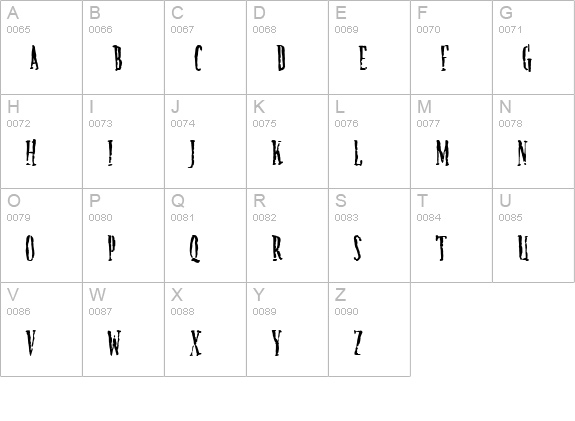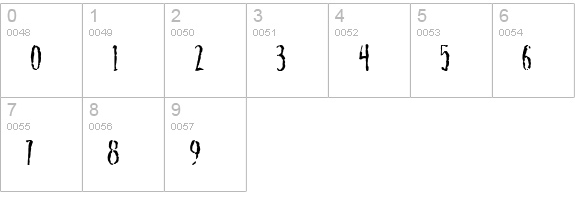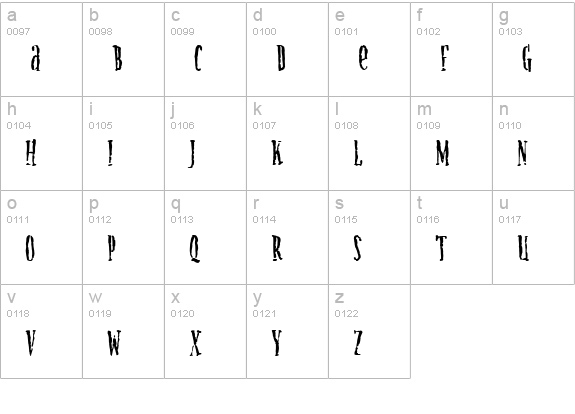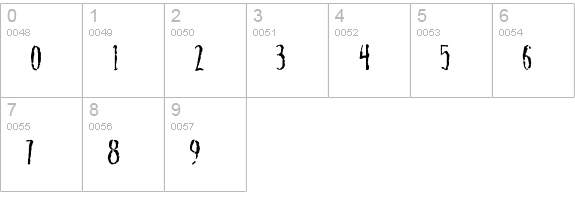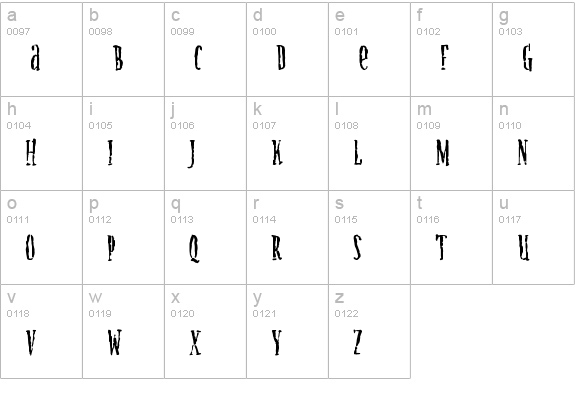
CreatureA Font Details
CreatureA font is an exquisite display font that exudes a unique charm and sophistication. With its intricate details and whimsical curves, this font is perfect for adding a touch of elegance to your designs. Whether you're working on a branding project, invitation, or any other creative endeavor, CreatureA font will elevate your work to the next level. The best part? CreatureA font is completely free to download at FontsMarket.com. This means you can easily access this stunning font and use it in your projects without any cost. Don't miss out on the opportunity to enhance your designs with the beauty of CreatureA font - download it now and let your creativity soar.